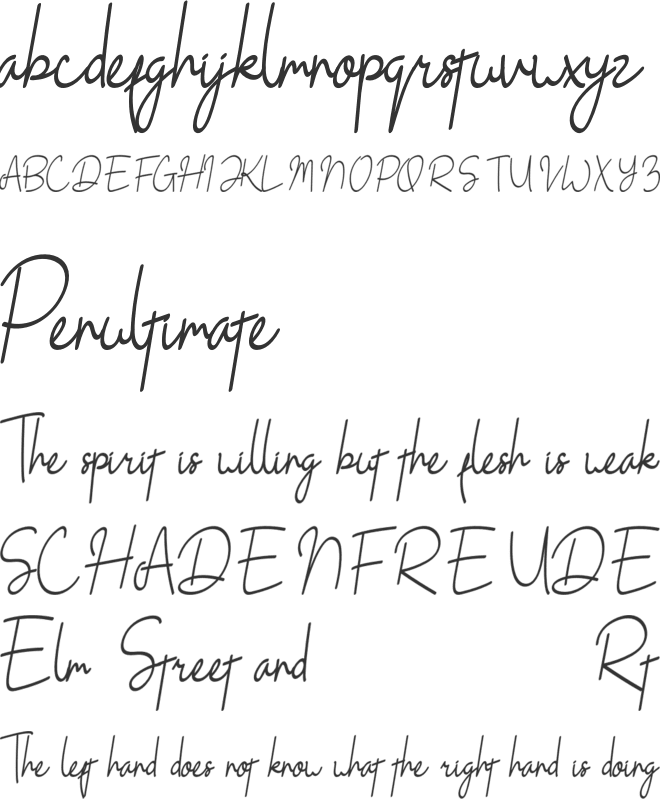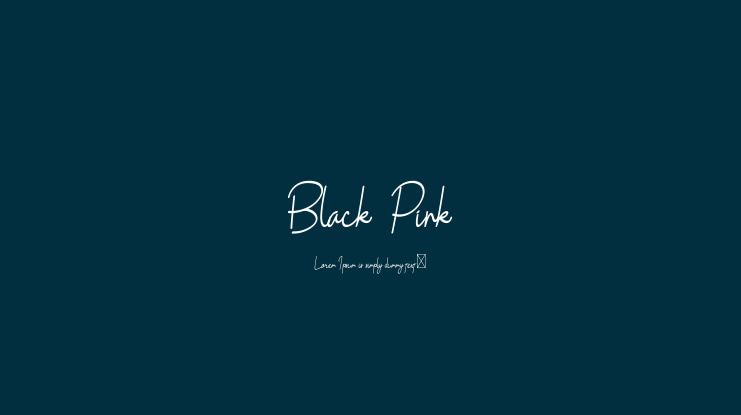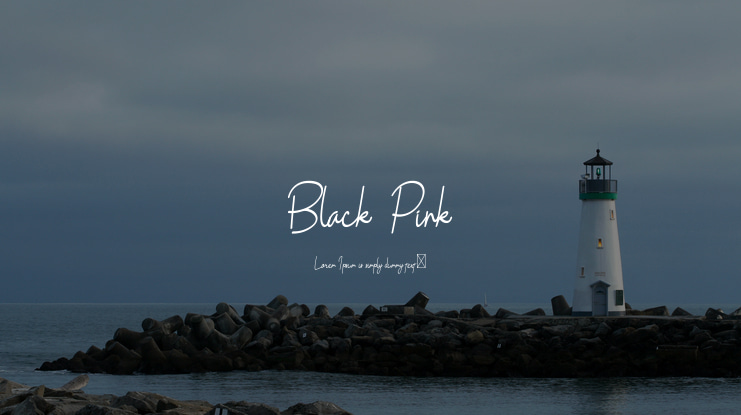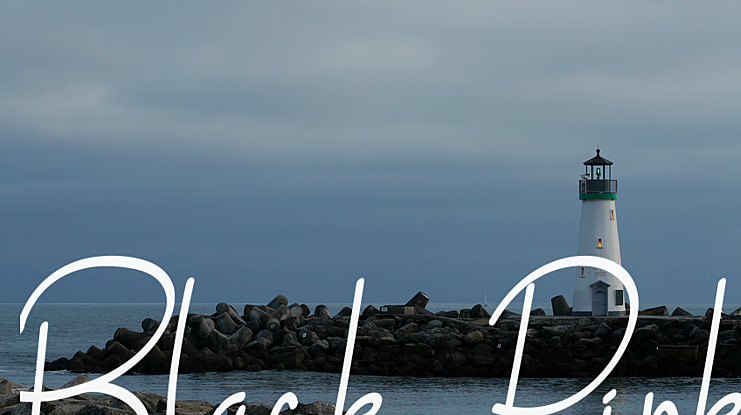
Black Pink Font
Black Pink has philosophy of being bold and soft at the same time. Which means this font looks soft, sophisticated, elegant, and strog that could lift your project into amazing and fabulous.Black Pink would perfect for photography, watermark, social media posts, advertisements, logos & branding, invitation, product designs, label, stationery, wedding designs, product packaging, special events or anything that need handwriting taste.